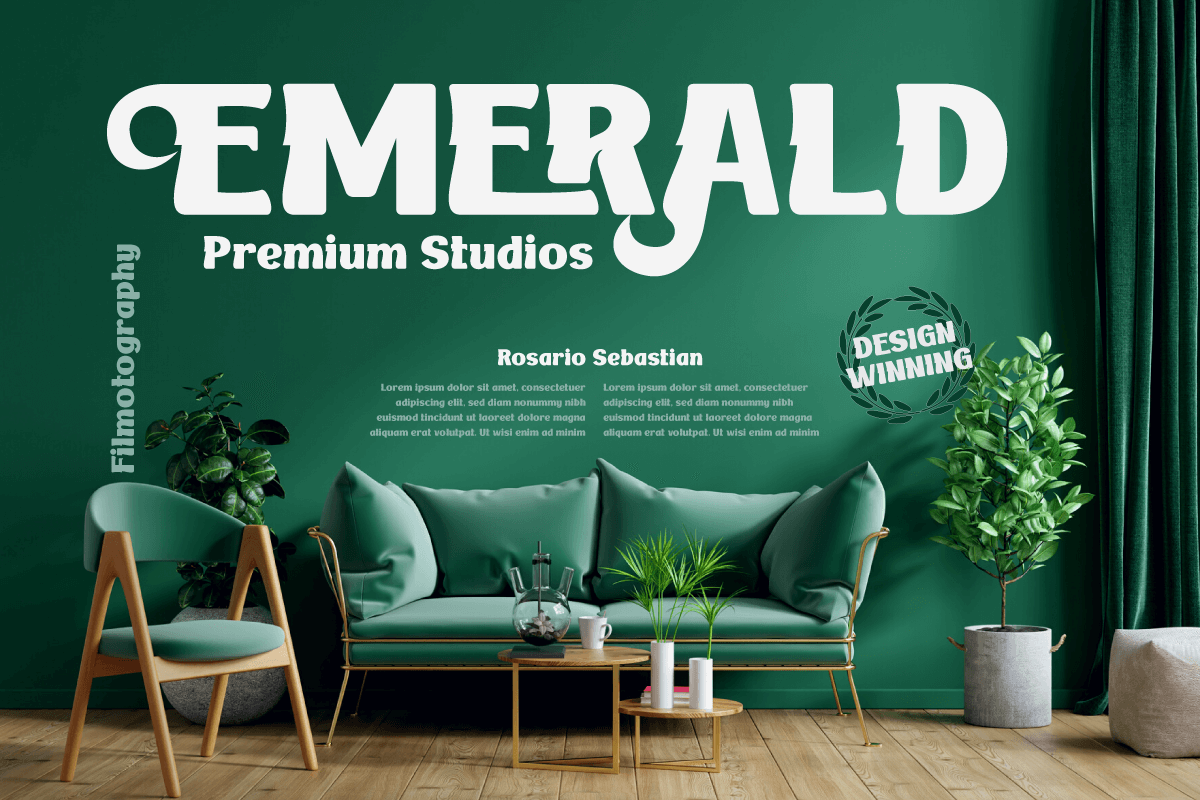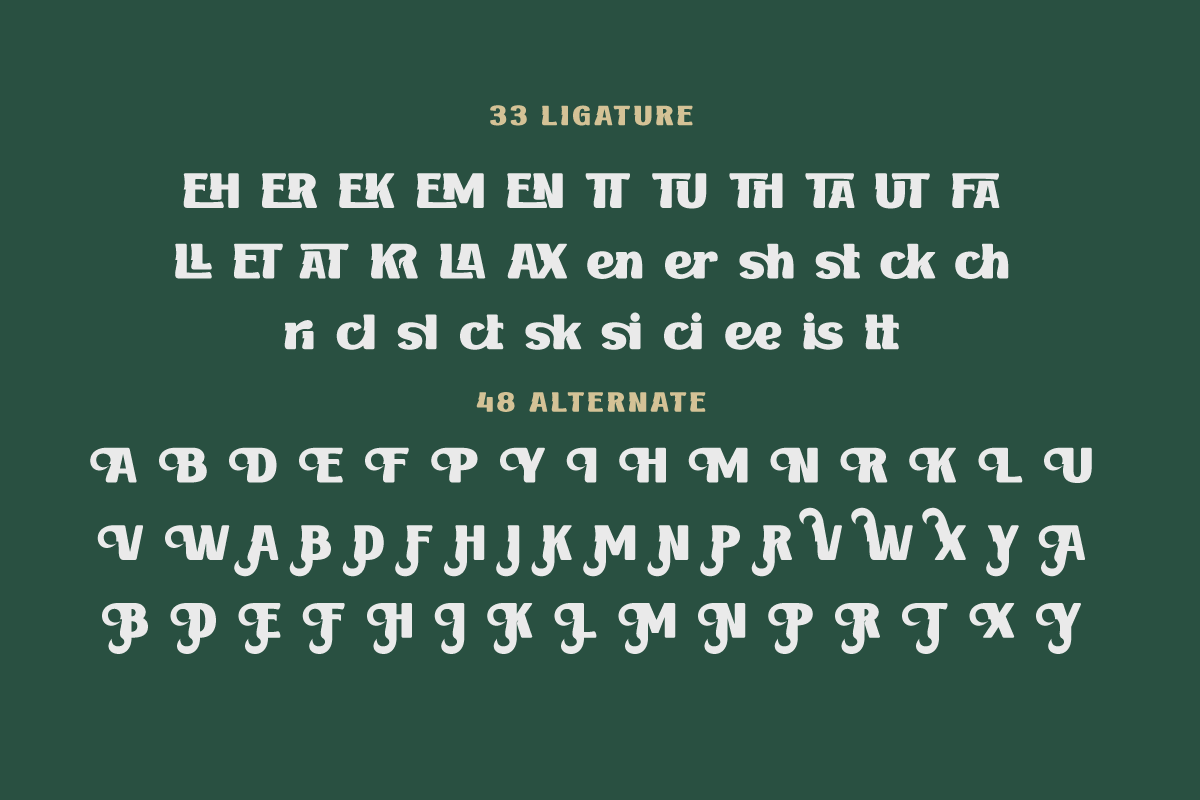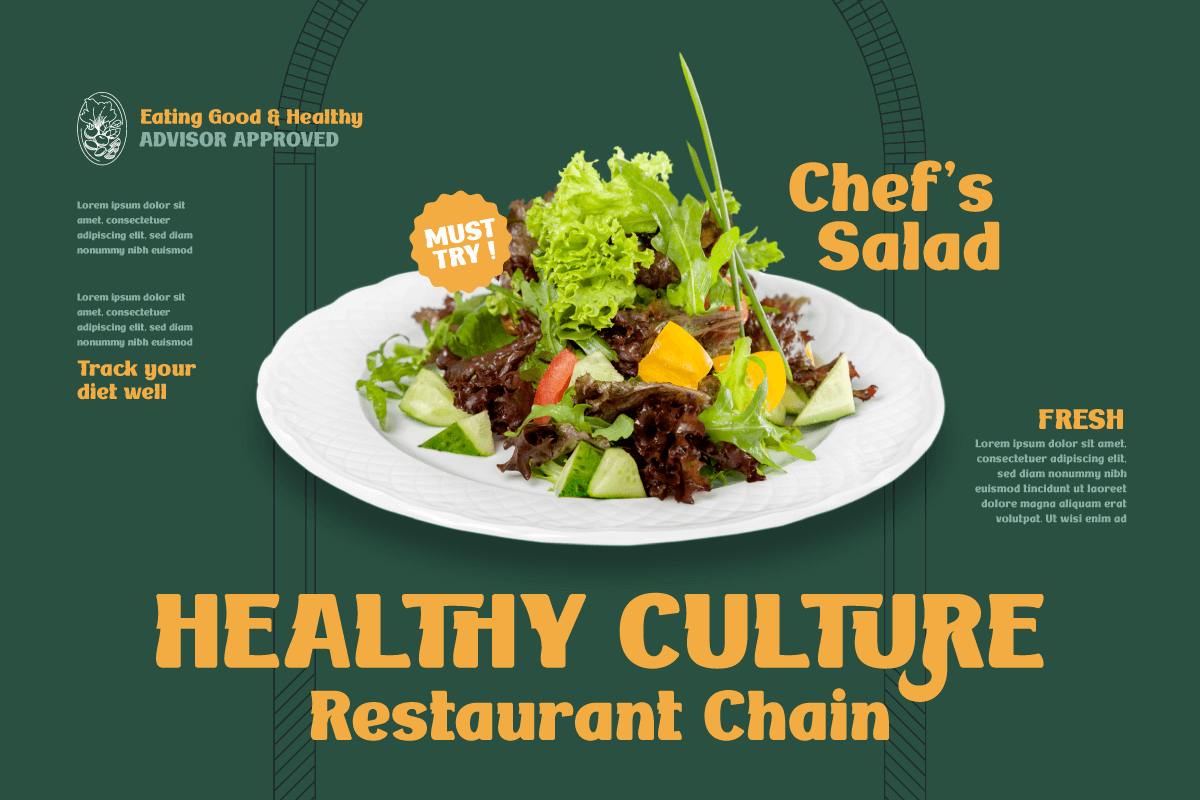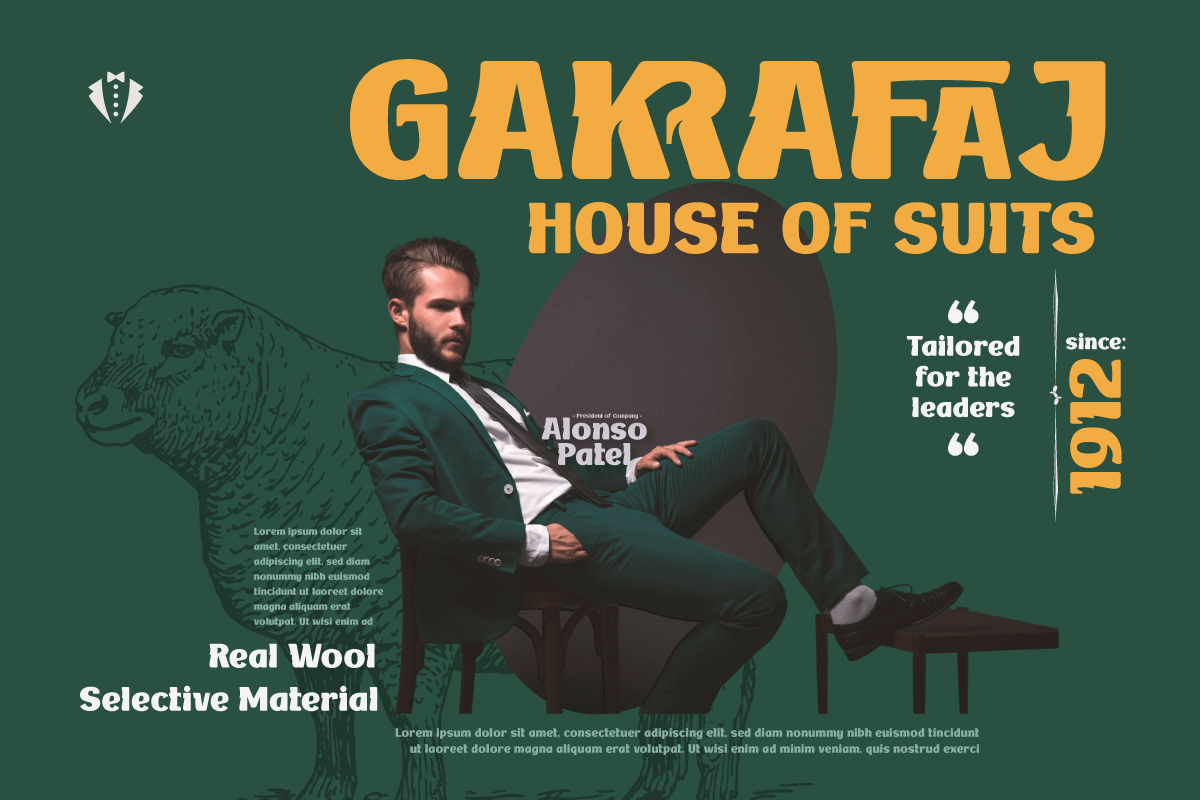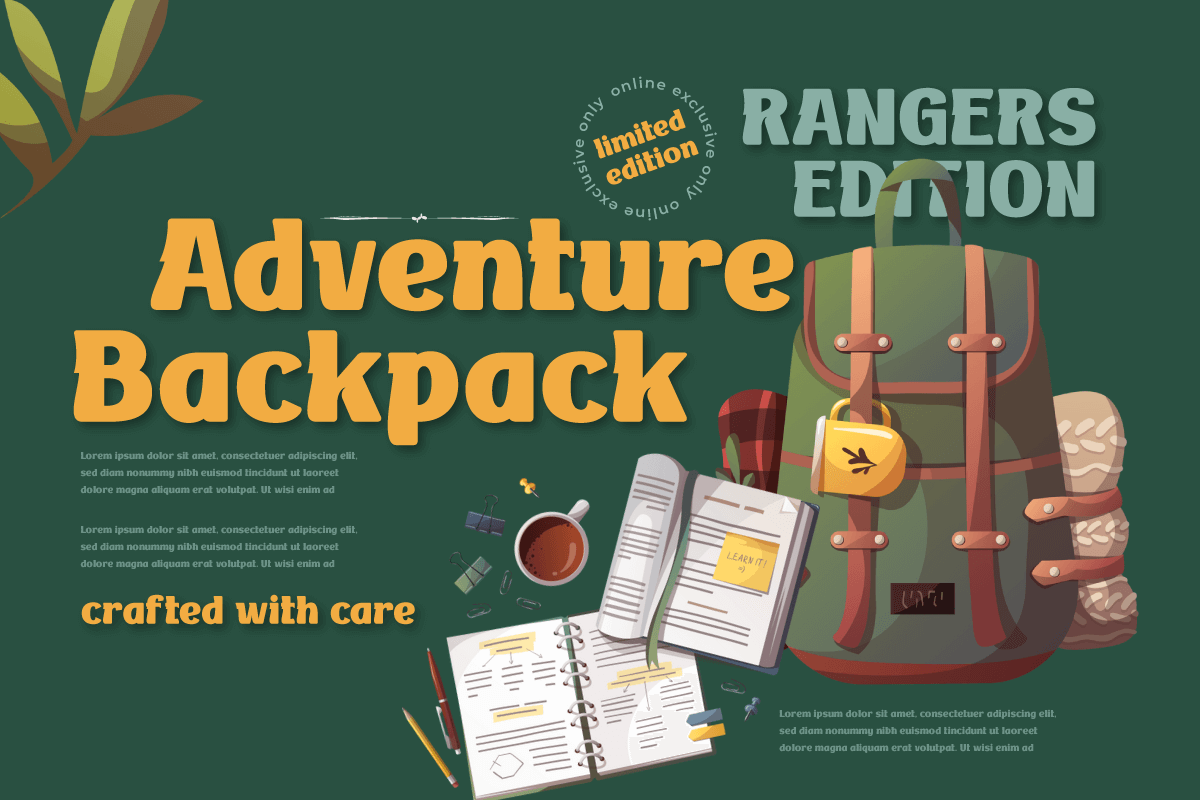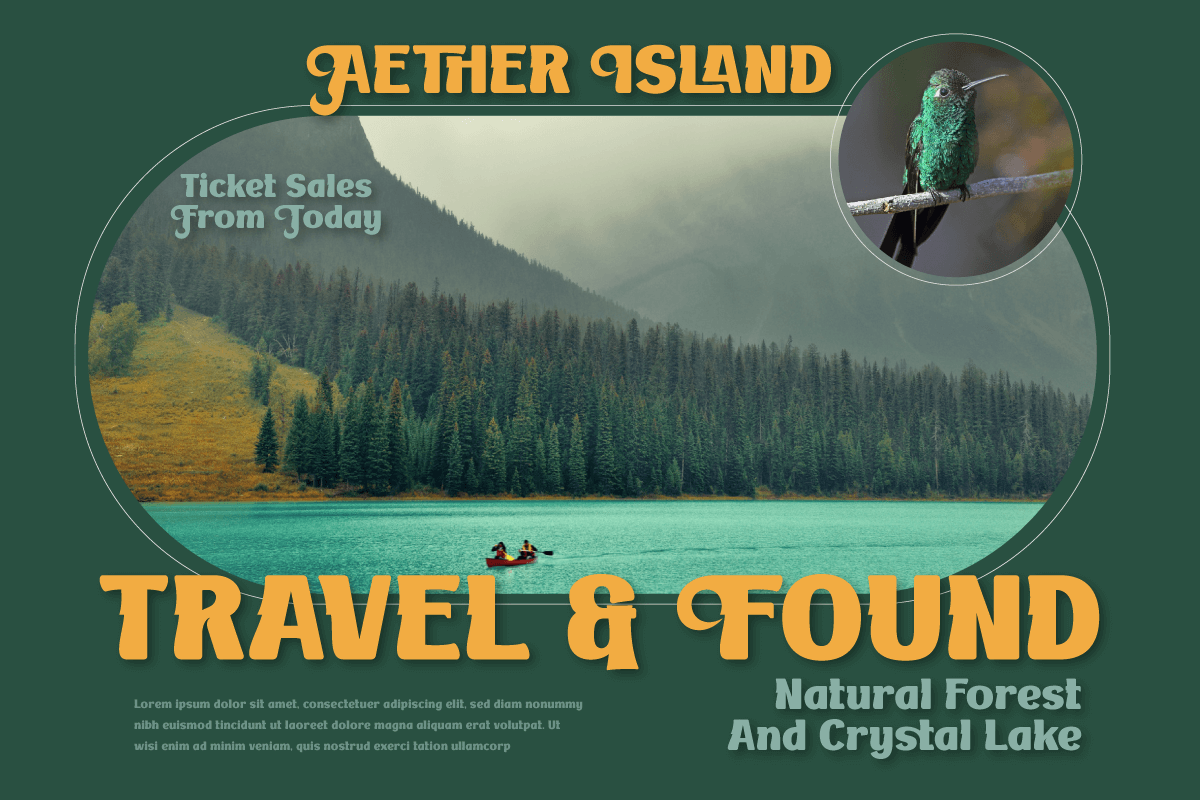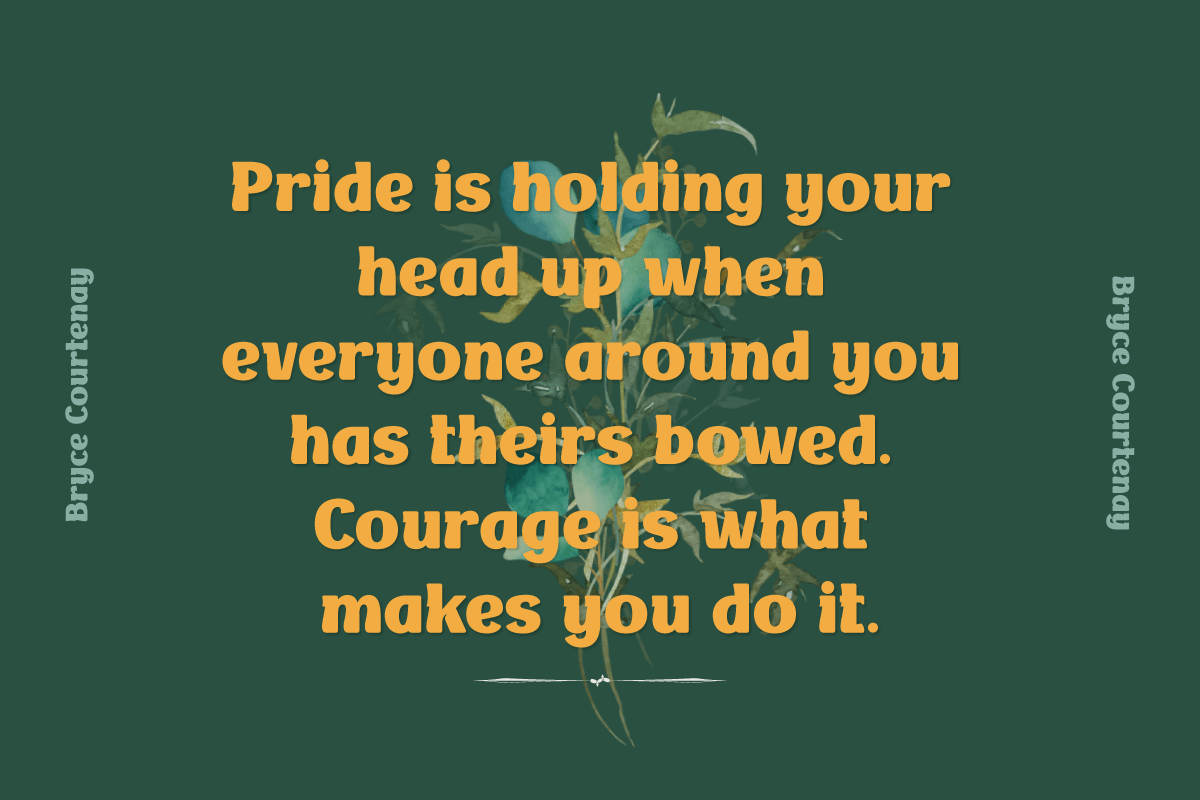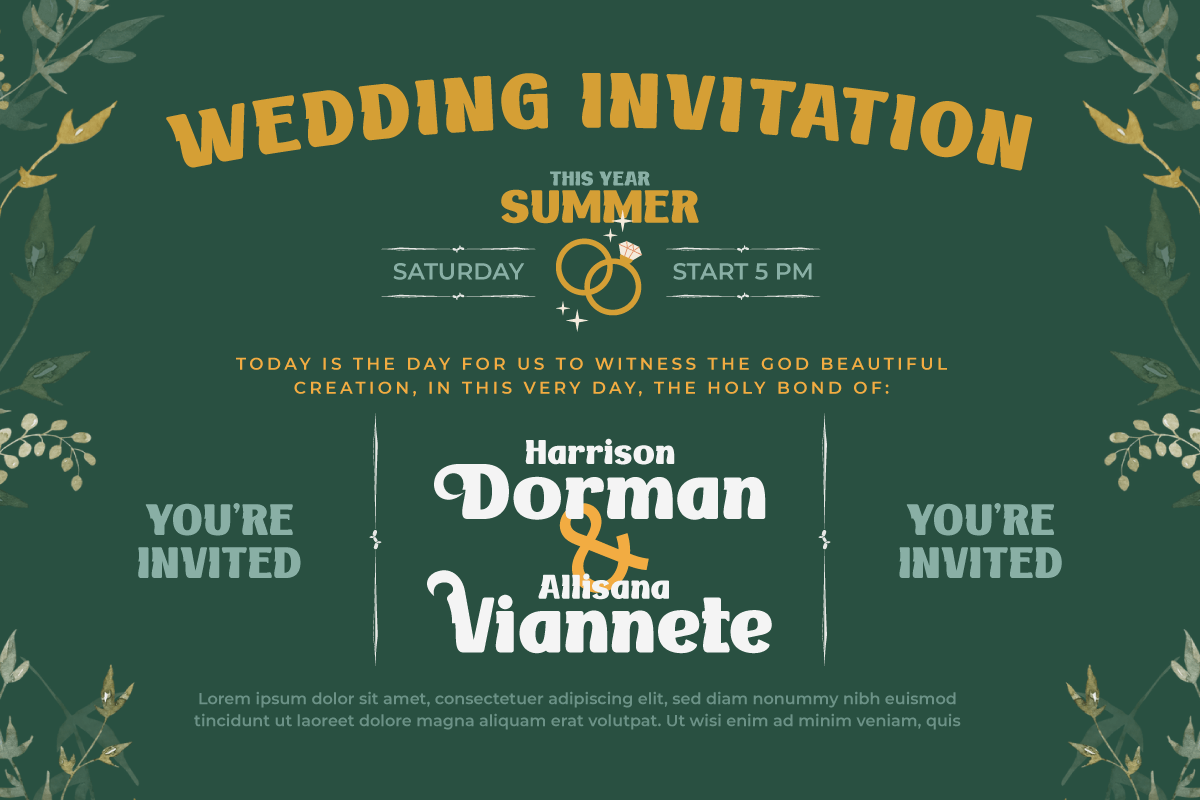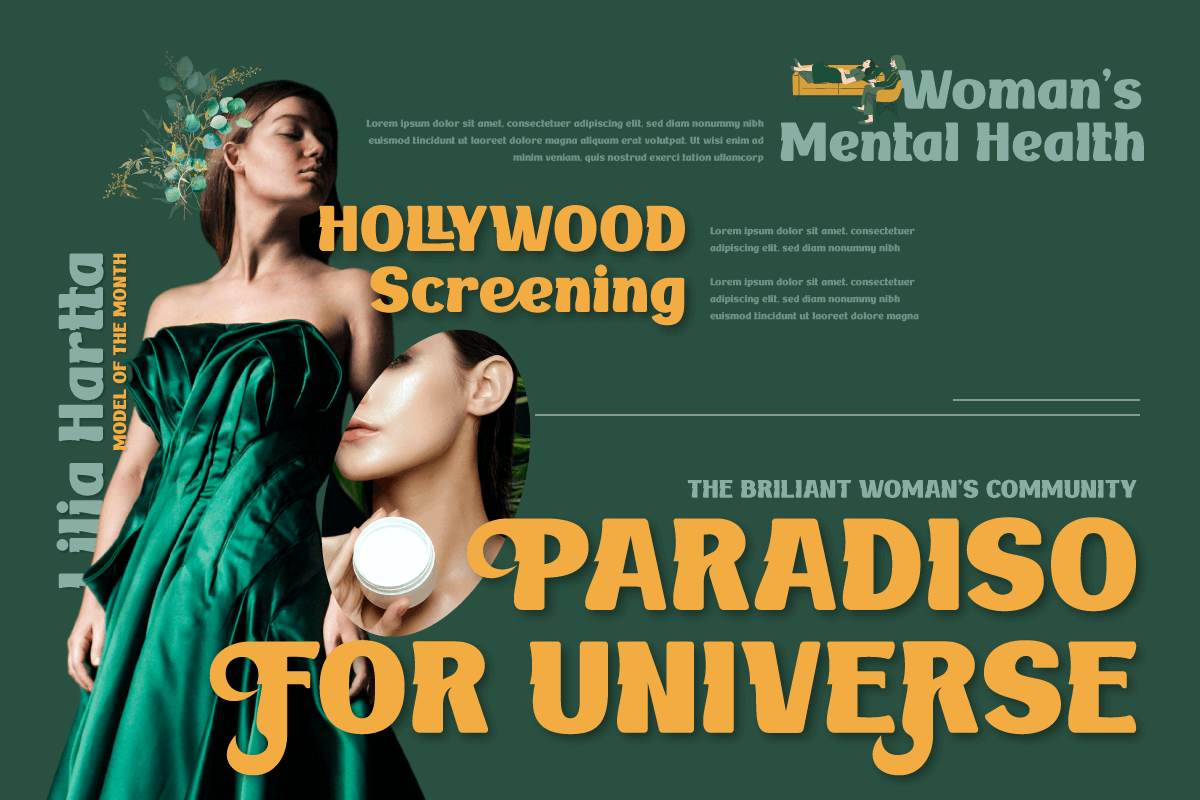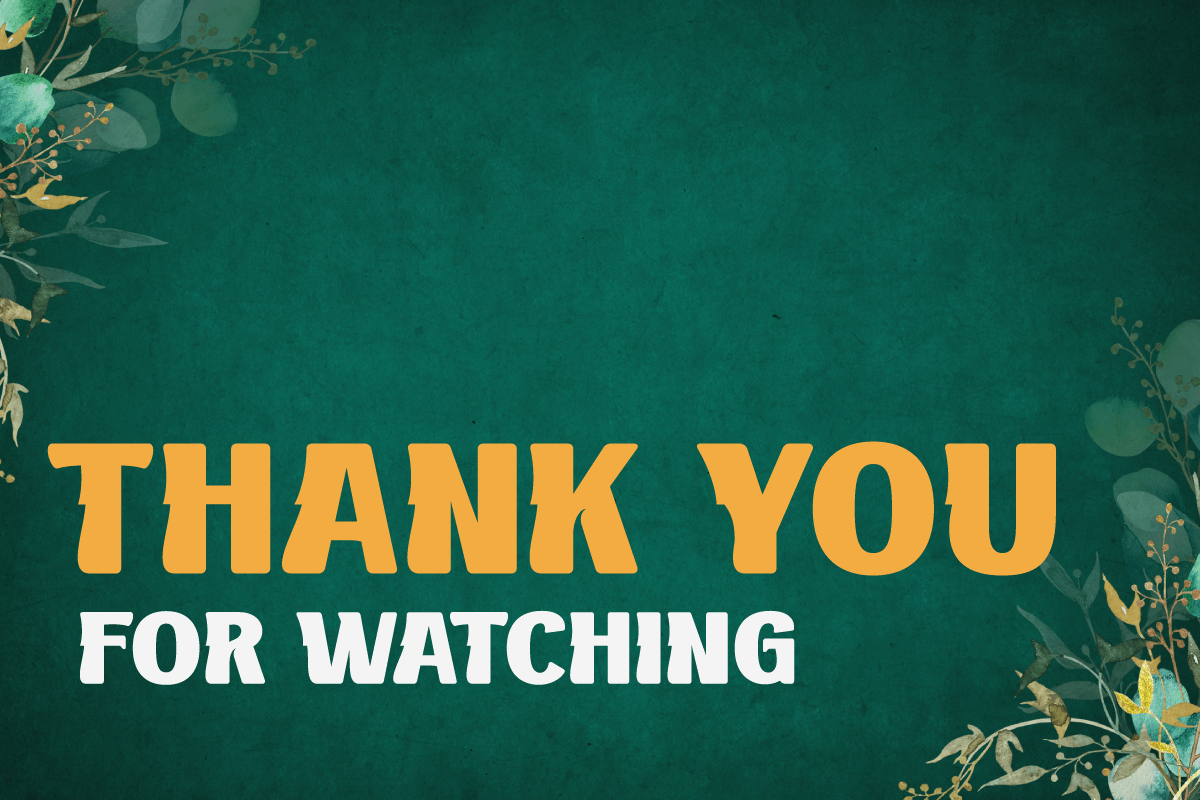
BAKRUV | Serif Classic Modernism
Find the perfect balance between classic and modern with the Bakruv font collection. Coming with a classic serif theme, this font is the ideal solution for projects that require a touch of classic modernism. Each letter is carefully designed, combining beauty and elegance in one package.
With ligature and alternate features, Bakruv provides flexibility in creating a unique and attractive appearance. The richness of characters offered allows you to express your creativity more freely. Also, this font supports multilingualism, allowing you to convey your message fluently in multiple languages.
Get an unforgettable design experience with Bakruv. Each letter exudes strength and courage, bringing a standout look to your project. Enjoy the high quality of every detail of this font, ensuring an impressive and professional end result.
Explore the Bakruv collection now and add an irreplaceable touch of classic modernism to your designs. Make an unforgettable impression with this high-quality font.
- Alternate, Ligature